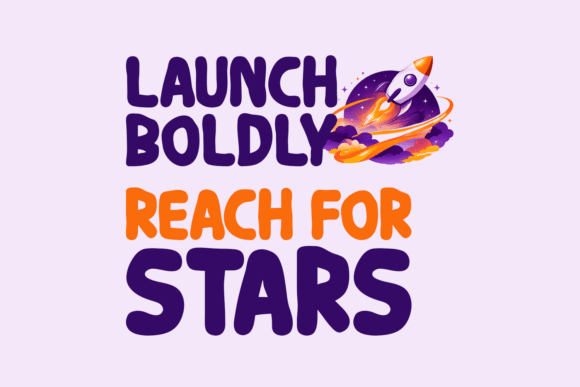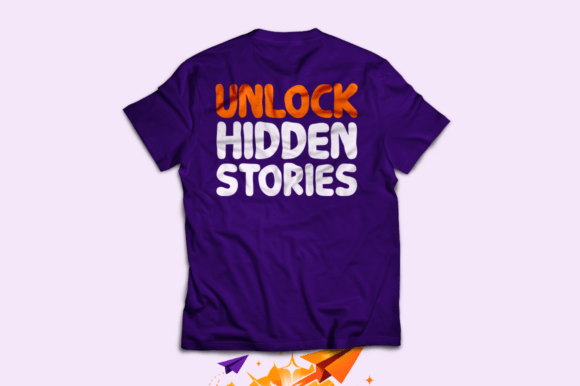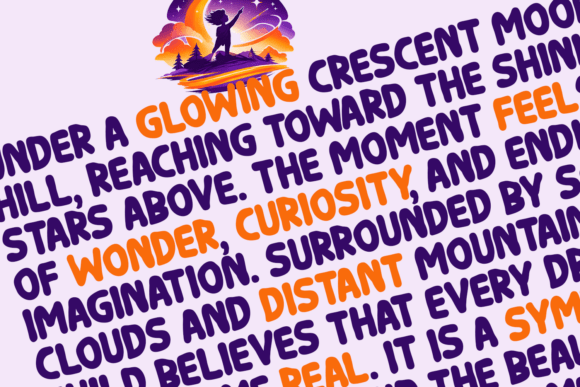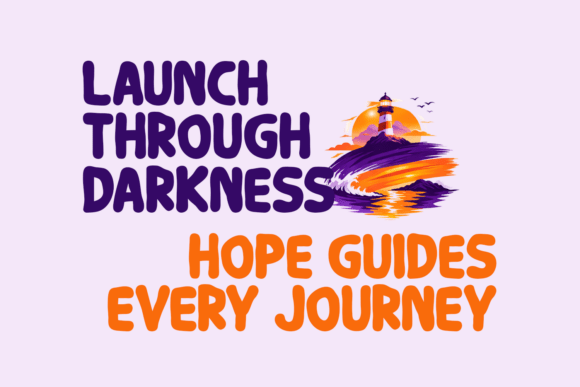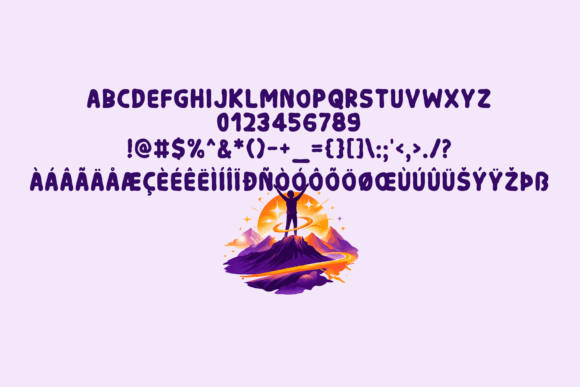
Introduction to Prime Wonder Font Font
Fonts play a crucial role in design, and the Prime Wonder Font font is a typeface that brings both character and versatility to any project. Whether you’re working on a branding project, a website, or a print design, the Prime Wonder Font font offers a unique style that can elevate your work.
Prime Wonder Font is a bold and playful display font designed to bring imagination, creativity, and joyful energy into your designs.
With its rounded shapes, friendly letterforms, and smooth decorative style, this font creates a fun and magical atmosphere that instantly grabs attention Prime Wonder font is perfect for childrenβs designs, storybook titles, posters, branding, logos, packaging, and creative headlines that need a lively and adventurous personality.
Key Features of Prime Wonder Font Font
Why Choose Prime Wonder Font Font?
The Prime Wonder Font font is more than just a typeface β it’s a design tool that helps you communicate your message with style and clarity. Its unique character set and versatile design make it suitable for a wide range of applications, from elegant invitations to bold headlines.
With its carefully crafted letterforms and balanced proportions, the Prime Wonder Font font ensures readability and visual appeal across all mediums.
What makes Prime Wonder Font font special?
The Prime Wonder Font font stands out with its unique design, exceptional readability, and versatility across various design applications.